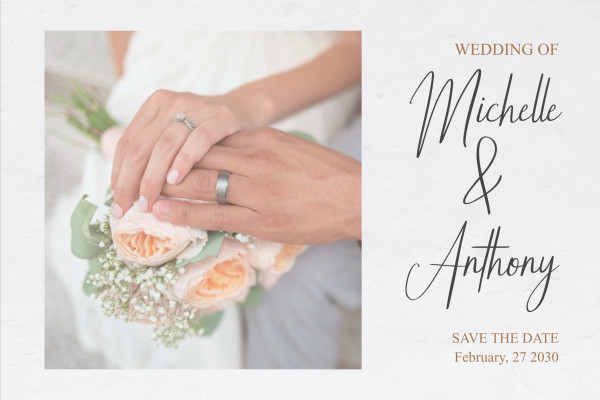
Beatty Story Font
Beatty Story Font is a modern script font, looks stylish and fashionable. The elegant curves make this font very pretty.
Beatty Story is perfect for branding projects, logos, wedding designs, social media posts, advertisements, product packaging, product designs, labels, photography, watermarks, invitations, stationery, and any project that requires a sense of handwritten signature.